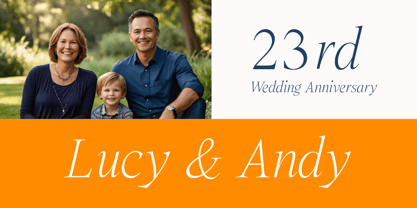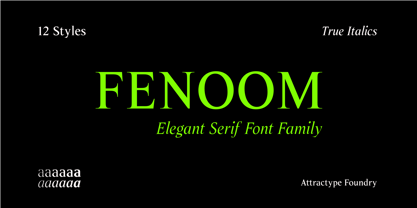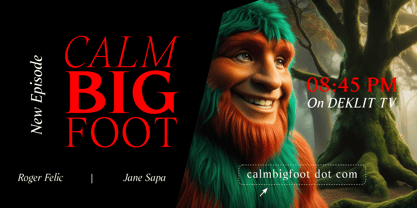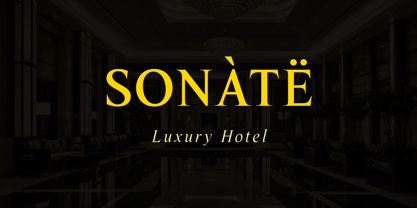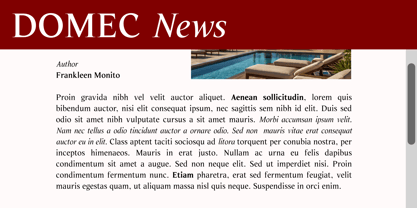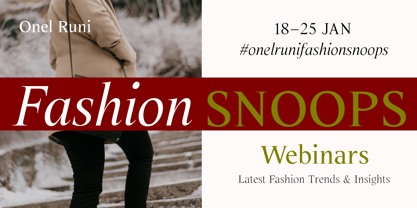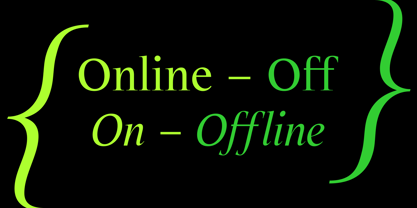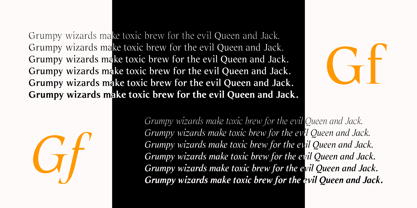
Fenoom
Die Schriftfamilie Fenoom wurde von Saefulloh entworfen und von Attractype veröffentlicht. Fenoom enthält 12 Stile und Familienpaketoptionen.
Fenoom - An elegant and stylish alternative serif font, high contrast, easy to read, supports true-italic style, and is multilingual.
This font is suitable for various design and printing projects such as advertisements, banners, posters, books, magazines, logo designs, web pages, and more.